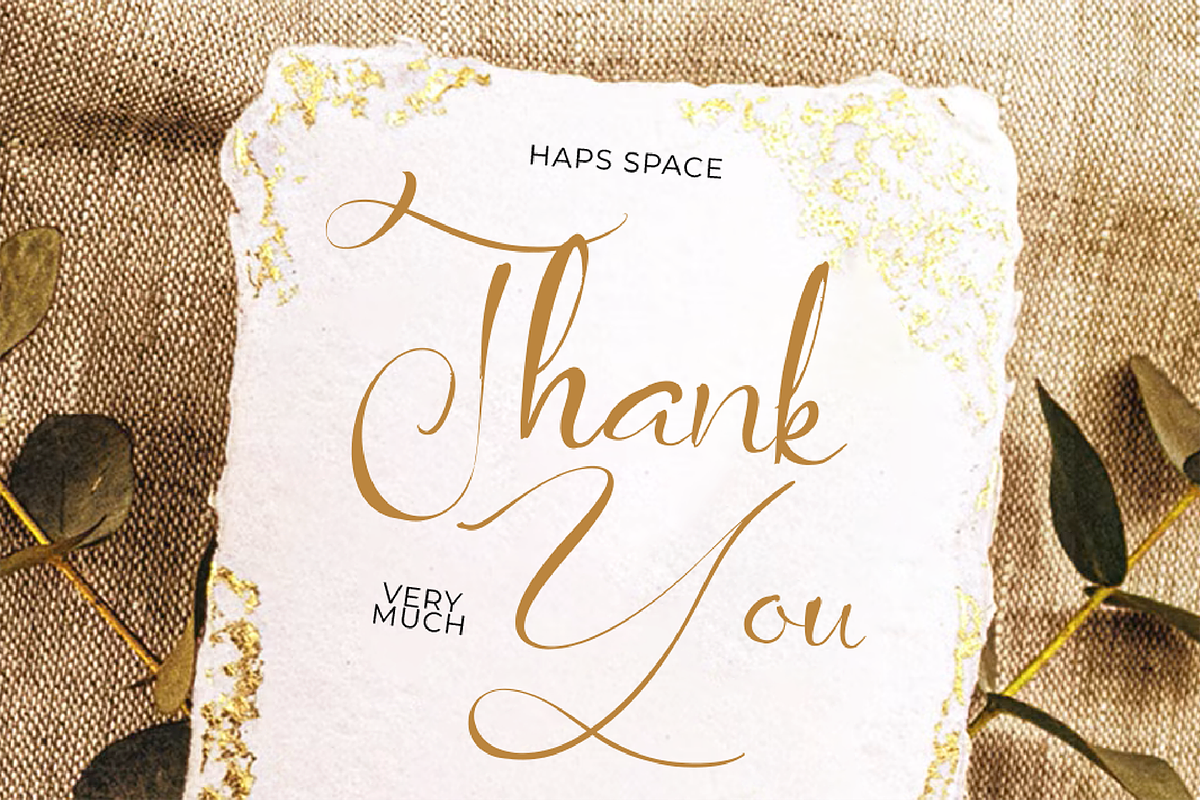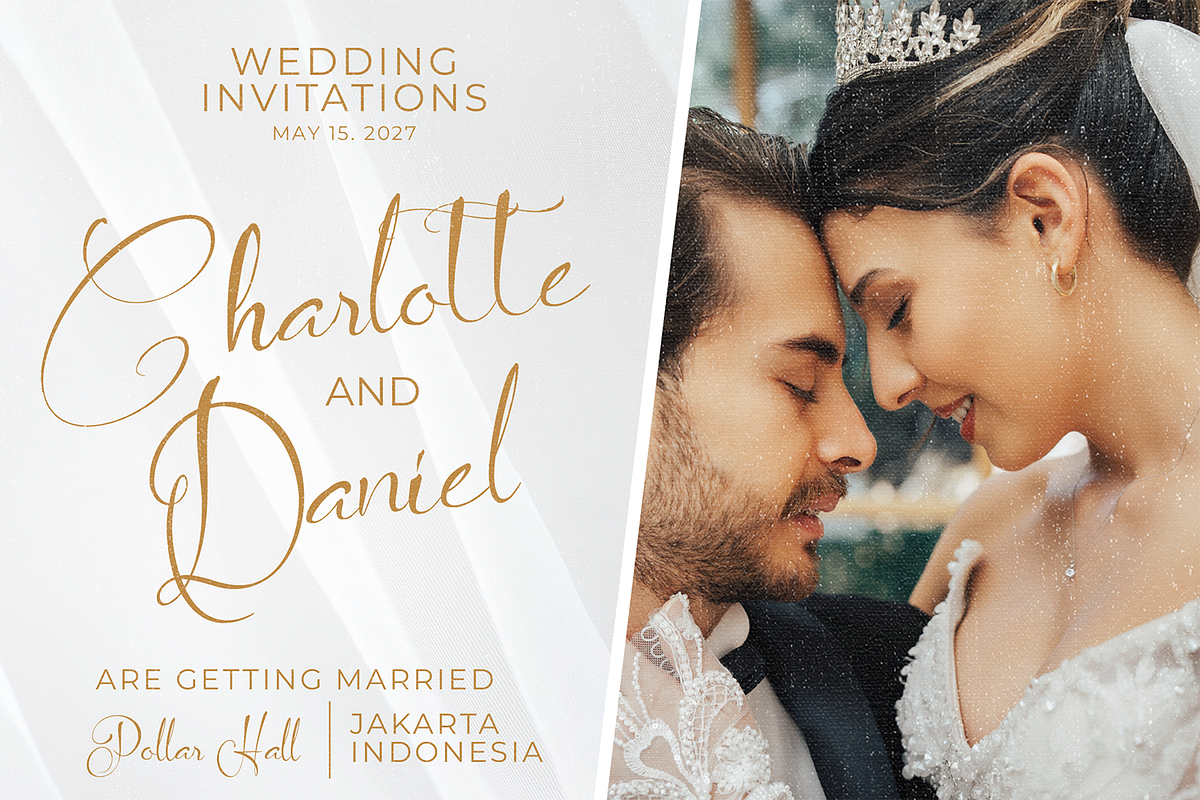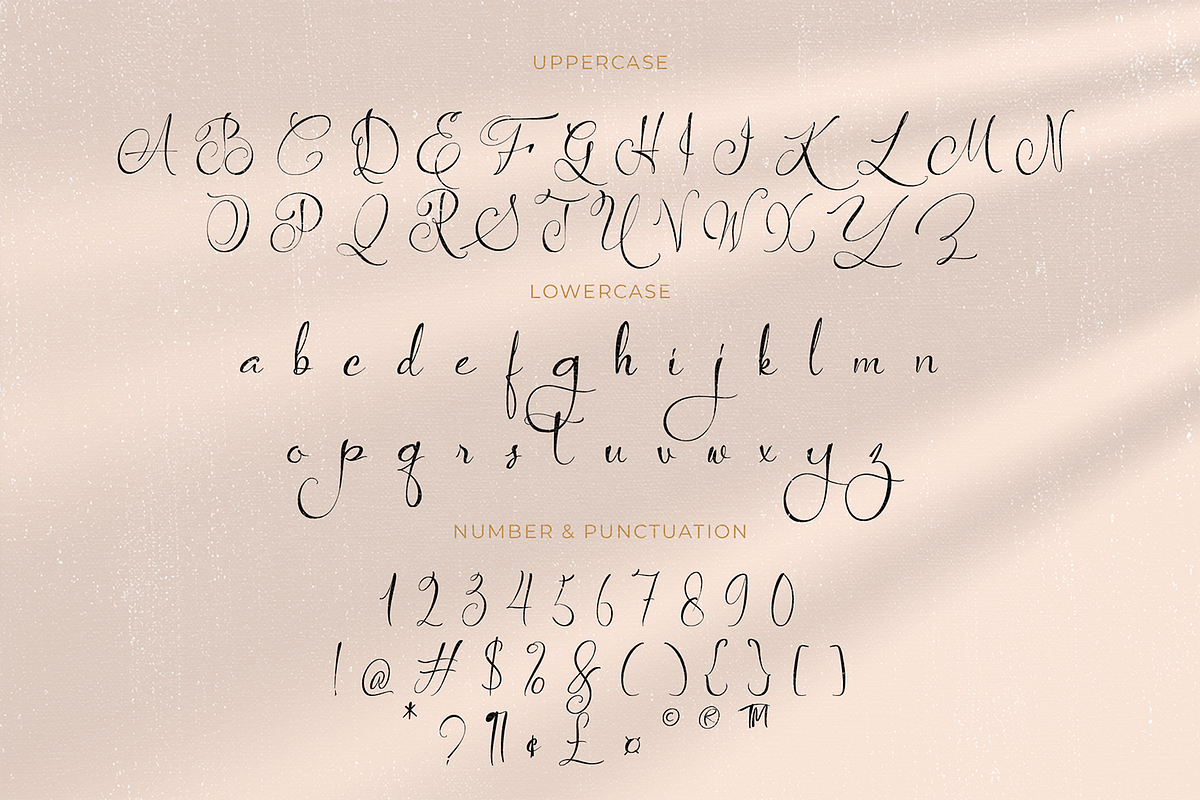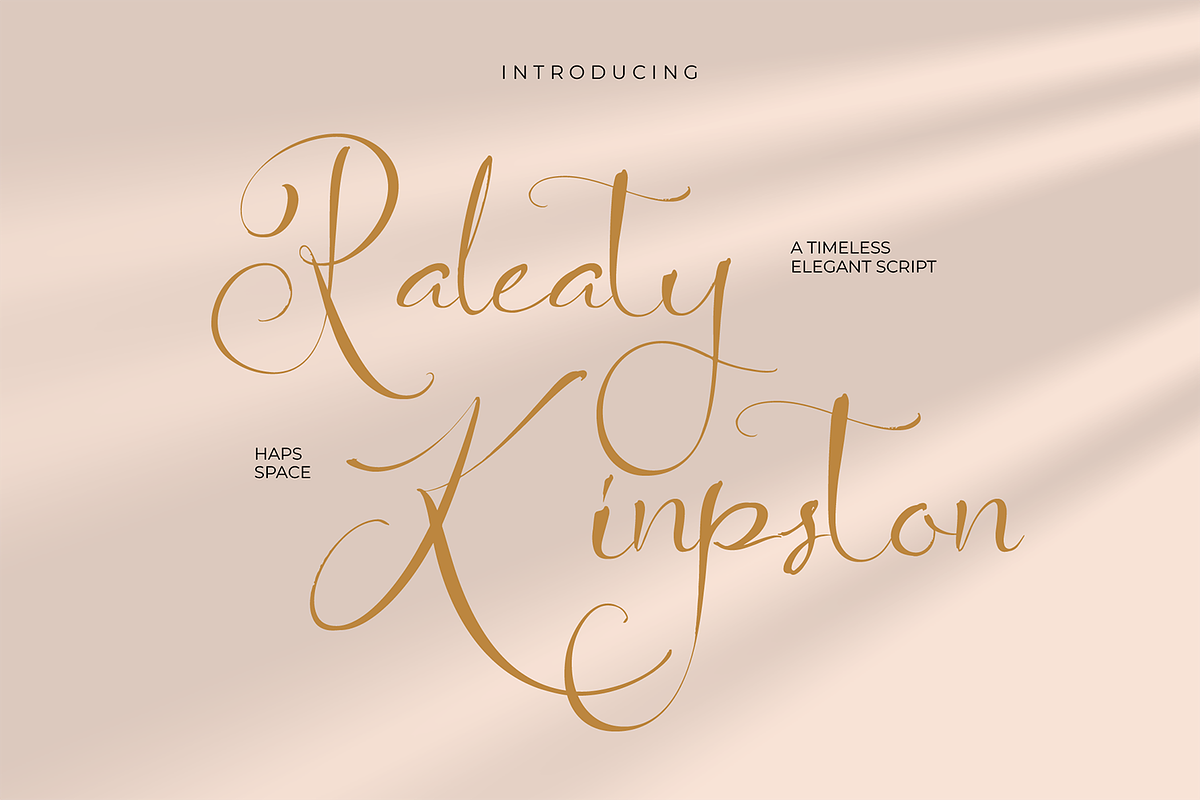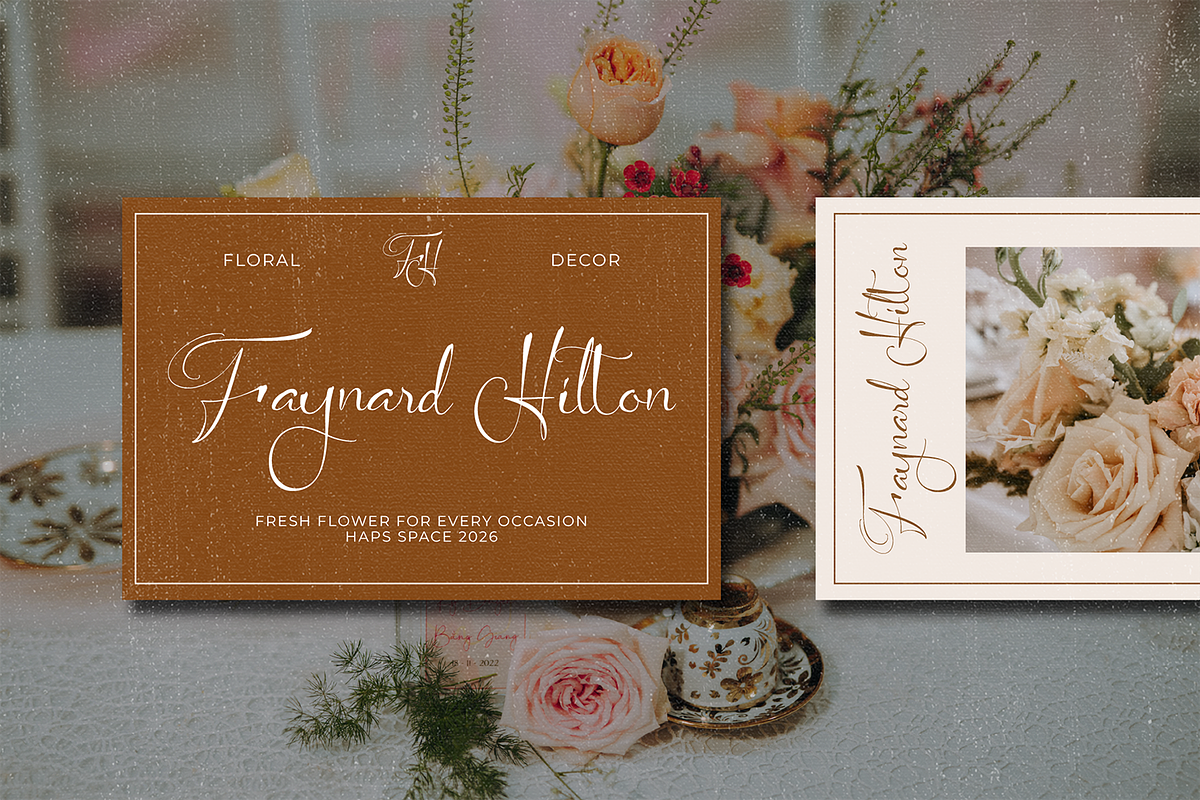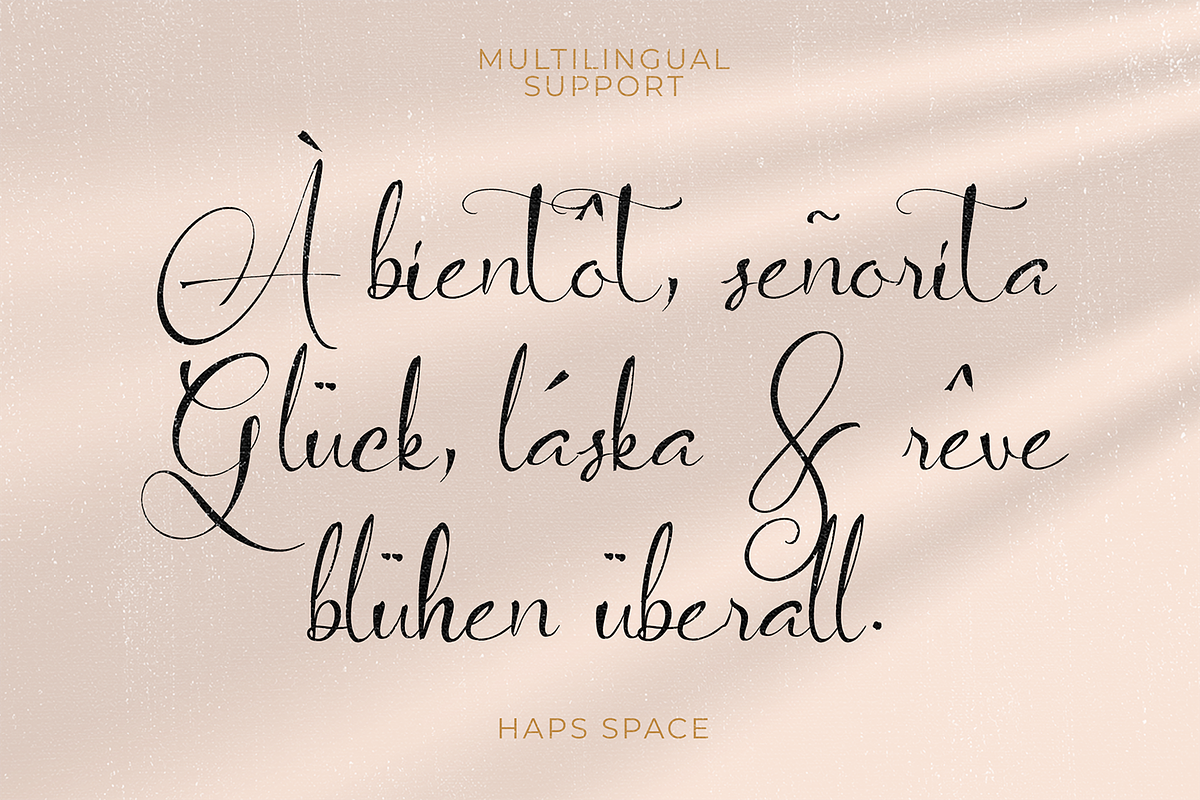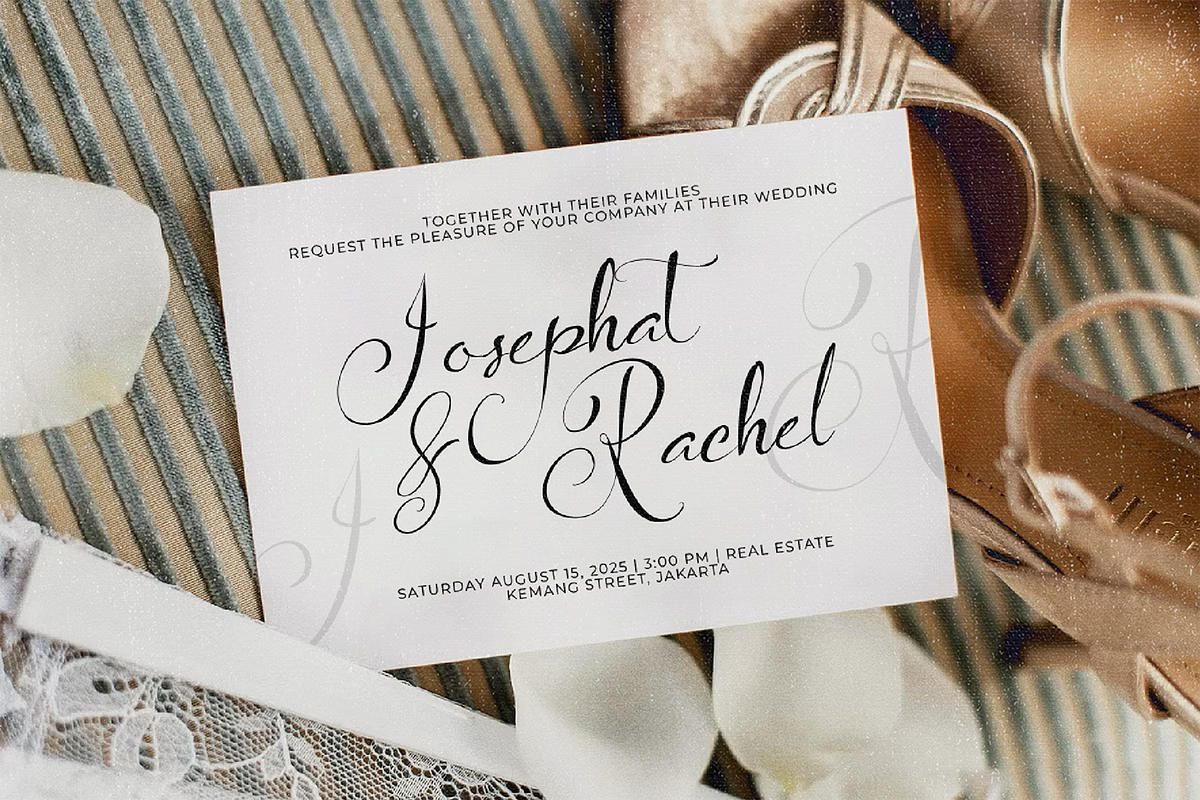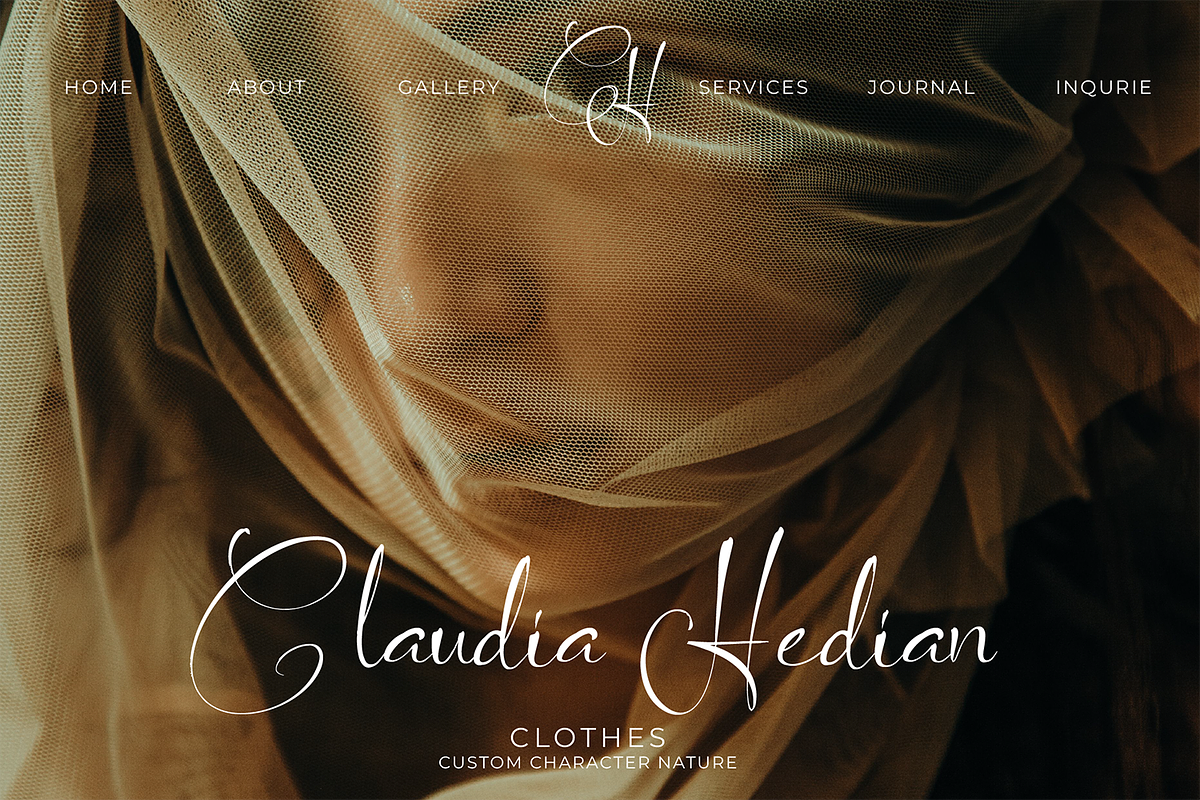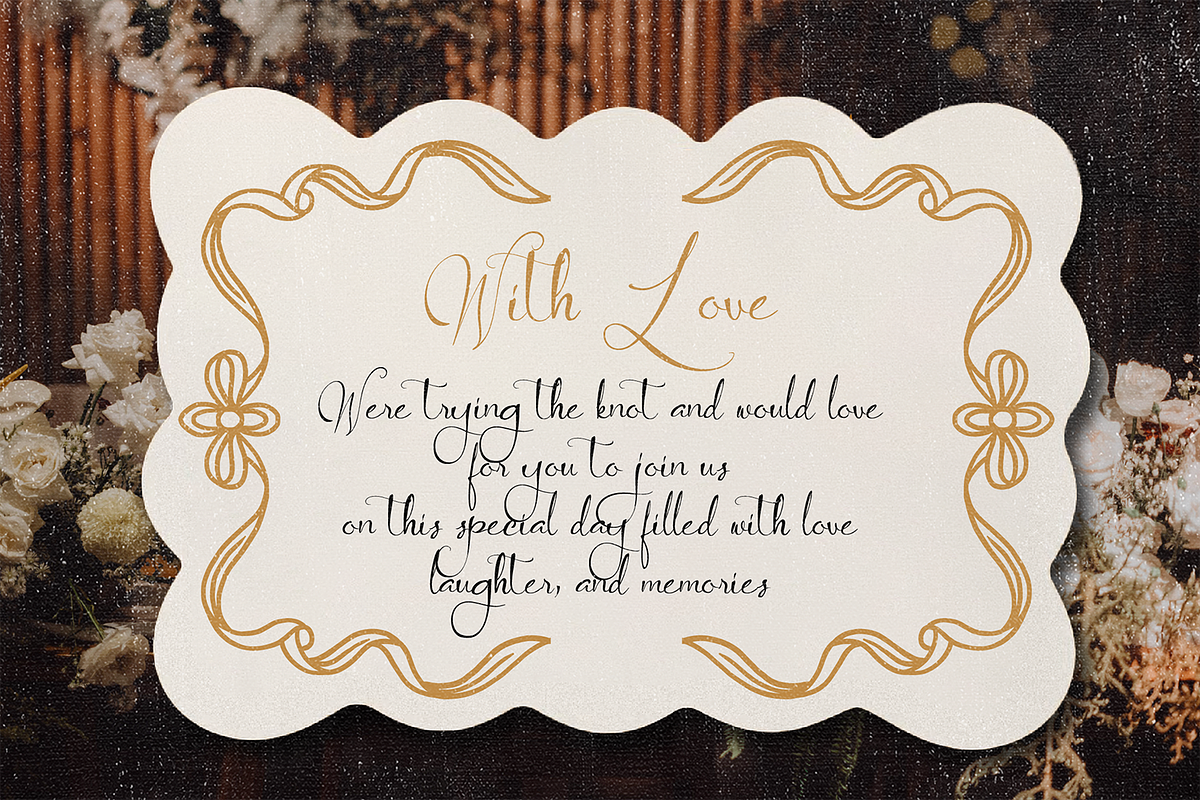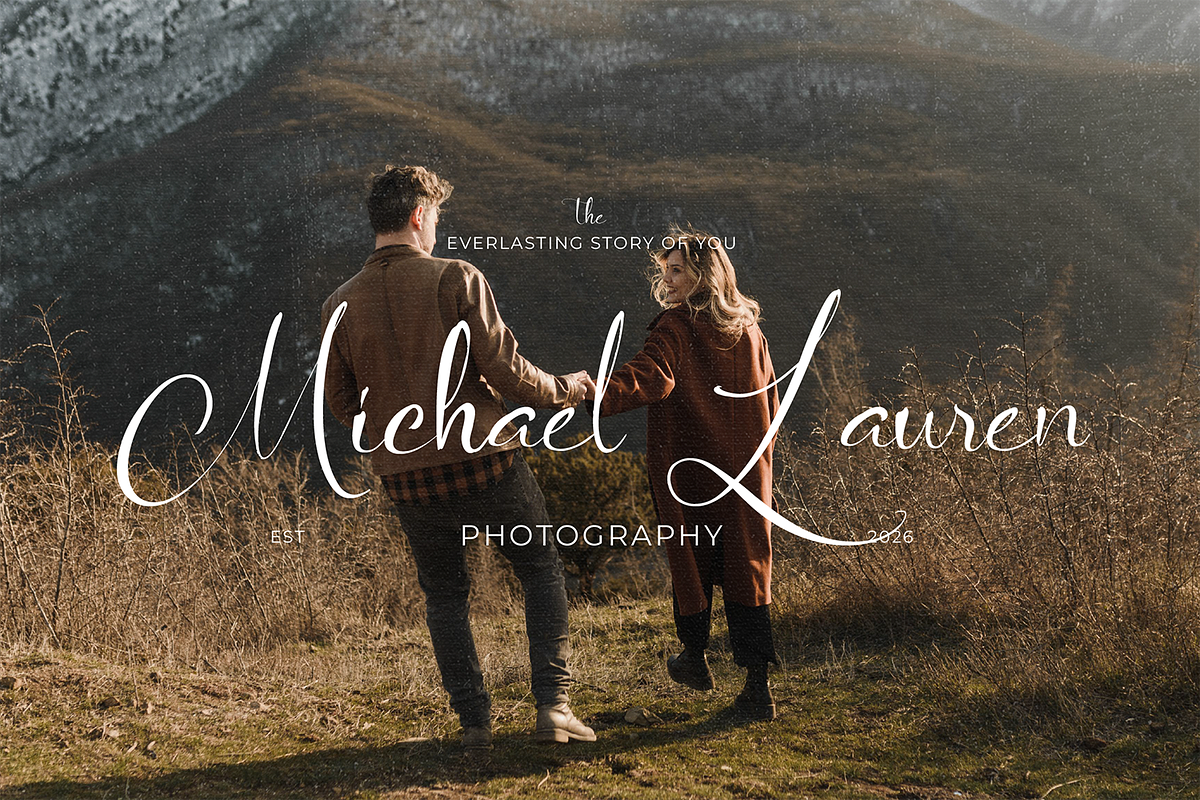
Raleaty Kingston – Timeless Elegant
Raleaty Kingston is a sophisticated and timeless script font designed to bring grace, luxury, and high-end elegance to modern typography projects. Featuring refined fluid strokes, delicate swooshes, and classic calligraphy aesthetics, this font elevates display text with a effortless touch of beauty.
Crafted with meticulous attention to detail, Raleaty Kingston is tailored for design projects that require a romantic, upscale, and artistic feel.
- Complete Character Set: Includes full Uppercase and Lowercase script letterforms.
- Numbers & Punctuation: Complete standard numerals, symbols, and punctuation marks.
- Stylistic Alternates & Ligatures: OpenType features designed to create realistic, flowing handwritten calligraphy.
- Multilingual Support: Accentuated characters supporting various Latin-based languages.
Ideal Applications:
- Luxury Packaging: Enhances product boxes, cosmetics, perfume bottles, and artisanal packaging.
- Editorial Layouts: Elegant headlines for fashion magazines, lookbooks, covers, and online publications.
- Social Media Content: Perfect for aesthetic quotes, Instagram posts, Pinterest graphics, and story overlays.
- Event Materials: Beautiful typography for event invitations, place cards, menu titles, and signage.
- Digital Art & Merch: Great for quote graphics, luxury goods, and creative visual projects.